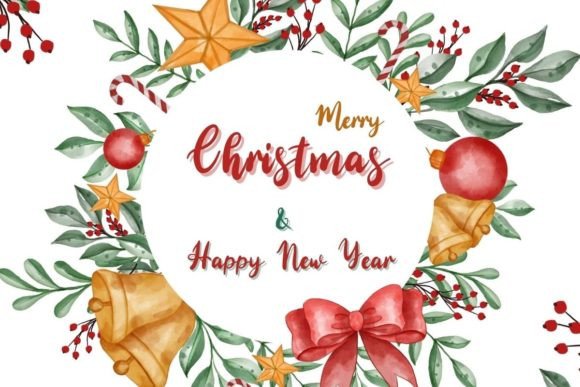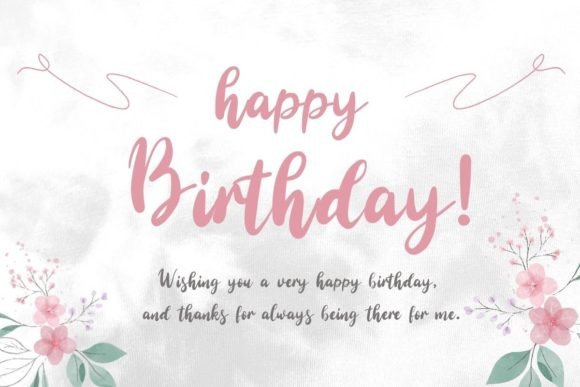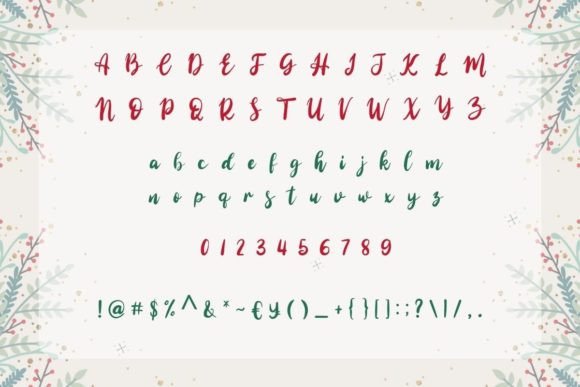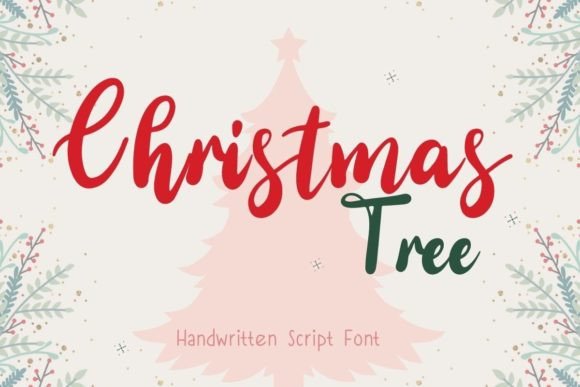
Christmas Tree Font: A Cute Handwritten Font to Elevate Your Designs
Are you looking for a font that adds a touch of whimsy and charm to your designs? Look no further than the Christmas Tree Font! This adorable handwritten font is perfect for creating beautiful and eye-catching projects, from birthday cards to wedding invitations, and more.
What is Christmas Tree Font?
Christmas Tree Font is a cute handwritten font with continuous writing and a cute charm. Its unique and playful style makes it perfect for adding a personal touch to your designs. The font’s generic look may fool you, but it’s sure to make your work more beautiful and engaging.
Features of Christmas Tree Font
- Cute and Whimsical: Christmas Tree Font has a playful and charming style that’s perfect for creating fun and engaging designs.
- Handwritten: The font’s handwritten style gives it a personal and unique touch that’s perfect for adding a human element to your designs.
- Continuous Writing: The font’s continuous writing style creates a flowing and natural look that’s perfect for creating beautiful text.
- Versatile: Christmas Tree Font is perfect for a wide range of design projects, from birthday cards to wedding invitations, and more.
Uses of Christmas Tree Font
Christmas Tree Font is a versatile font that can be used for a wide range of design projects, including:
- Birthday Cards: Create personalized and unique birthday cards with Christmas Tree Font.
- Wedding Invitations: Add a touch of whimsy and romance to your wedding invitations with Christmas Tree Font.
- Beautiful Art: Use Christmas Tree Font to create beautiful and eye-catching art pieces.
- Social Media Posts: Elevate your social media posts with Christmas Tree Font and make them more engaging.
- And More: Christmas Tree Font can be used for a wide range of other design projects, from party invitations to DIY crafts.
Why Choose Christmas Tree Font?
There are many reasons why you should choose Christmas Tree Font for your design projects. Here are a few:
- Unique Style: Christmas Tree Font has a unique and playful style that’s sure to make your designs stand out.
- Easy to Read: The font is easy to read and understand, making it perfect for creating designs that are both beautiful and functional.
- Versatile: Christmas Tree Font is perfect for a wide range of design projects, making it a great addition to your font library.
- Cute and Charm: The font’s cute and charming style is sure to add a touch of whimsy and fun to your designs.
Tips for Using Christmas Tree Font
Here are a few tips for using Christmas Tree Font in your design projects:
- Use it for Headings: Christmas Tree Font is perfect for headings and titles, where its playful style can really shine.
- Mix it with Other Fonts: Try mixing Christmas Tree Font with other fonts to create a unique and eye-catching design.
- Experiment with Colors: Don’t be afraid to experiment with different colors and textures to really make your design pop.
- Keep it Simple: Remember to keep your design simple and easy to read, even when using a playful font like Christmas Tree Font.
In conclusion, Christmas Tree Font is a cute and charming handwritten font that’s perfect for adding a touch of whimsy and fun to your design projects. Its unique style, versatility, and ease of use make it a great addition to any font library. Whether you’re a designer, crafter, or DIY enthusiast, Christmas Tree Font is sure to elevate your designs and make them more engaging.